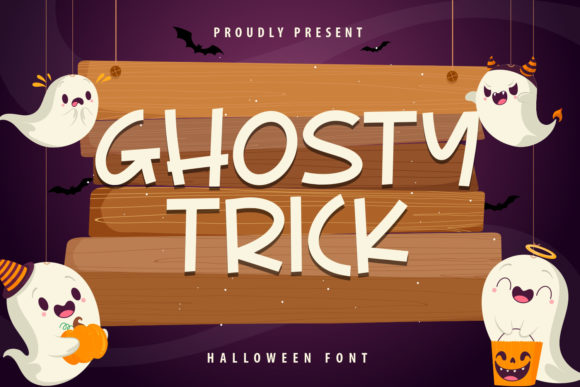
Unleash the playful spirit of Ghosty Trick Font, a display font that embodies the joy and laughter of childhood. This font family, curated by Typefar, is the perfect choice for any children's activity or school project, adding a touch of creativity and personality to your designs. Each whimsical letter of Ghosty Trick Font dances across the page, inviting you to explore a world of imagination and adventure.
With its adorable and spooky design, Ghosty Trick Font will transform your projects into enchanting tales. It's the perfect font for creating eye-catching posters, invitations, and announcements for children's parties, playdates, and special events. Let the playful curves and charming details of Ghosty Trick Font capture the attention of your audience, leaving a lasting impression that sparks joy and excitement.
Whether you're designing a school project, crafting personalized greeting cards, or creating unique labels and tags, Ghosty Trick Font is the perfect companion. Its versatility and charm make it suitable for a wide range of applications, adding a touch of magic to every design. Let your imagination soar as you bring Ghosty Trick Font to life, creating projects that resonate with children of all ages.
So, dive into the world of Ghosty Trick Font and let your creativity shine. With its playful spirit and spooky charm, this font will transform your projects into whimsical masterpieces that capture hearts and imaginations. Download Ghosty Trick Font today and embark on a creative journey filled with joy, laughter, and endless possibilities.